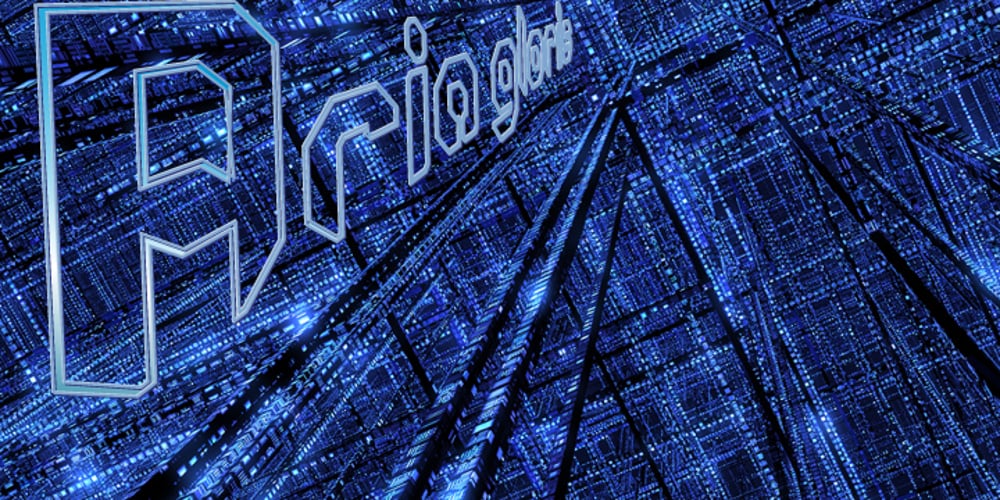
Semiautonomous Subunit Clade
Semiautonomous Subunit Clade font
Semiautonomous Subunit Clade Font Family was designed by Rob Barba and published by Megami Studios. Semiautonomous Subunit Clade contains 10 styles and family package options. Based on a weird thought of medieval monks hunched over PCs in an abbey on the moon, Semiautonomous Subunit Clade (SSC) is an attempt to find a medium between blackletter and sci-fi fonts. SSC is ideal for those looking for a unique touch in their typography…or who just want that cyber goodness.